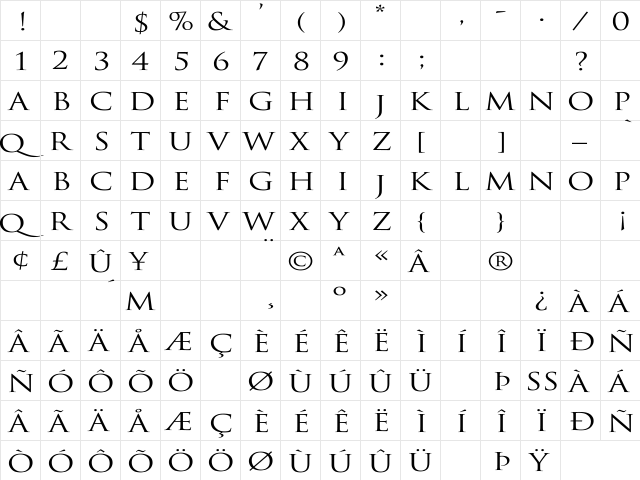
Trajan-Normal Wd Regular
Design Context for Trajan-Normal Wd Typeface
Trajan-Normal Wd is a composed and adaptable typeface that performs quietly and consistently across a wide range of design contexts.